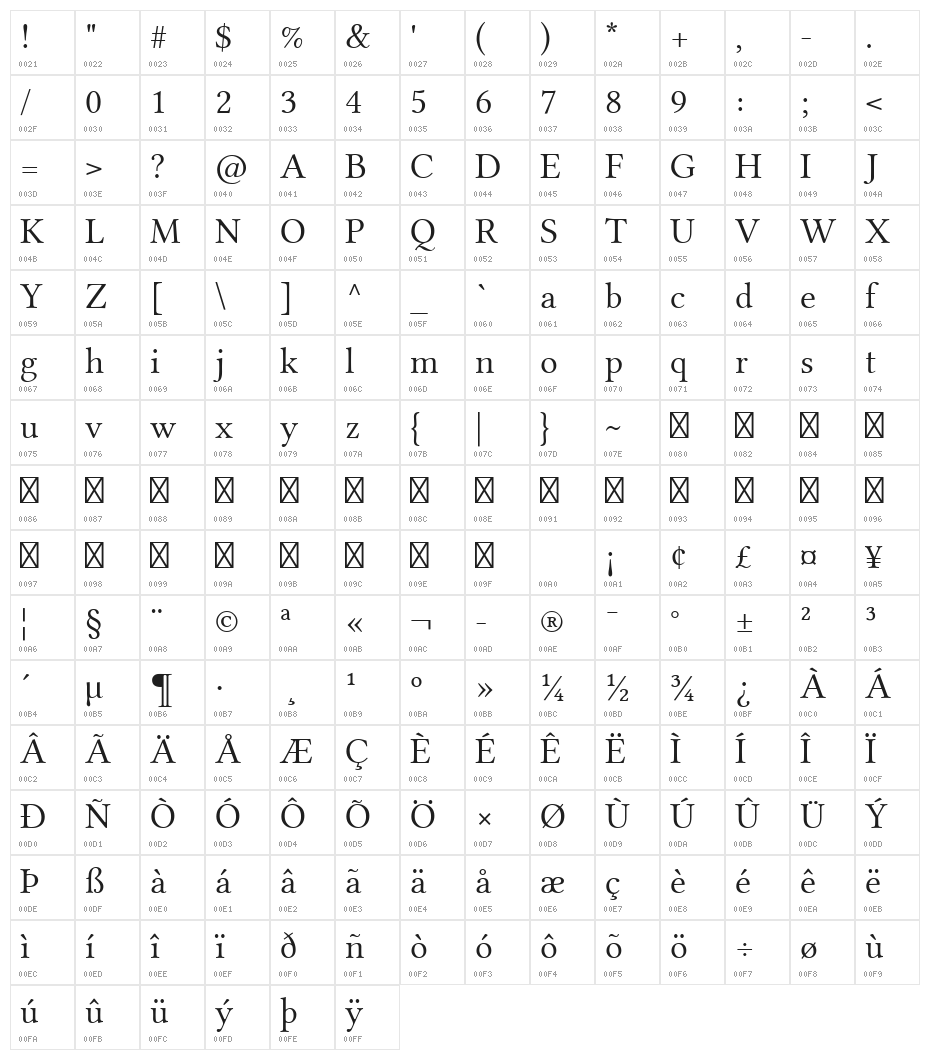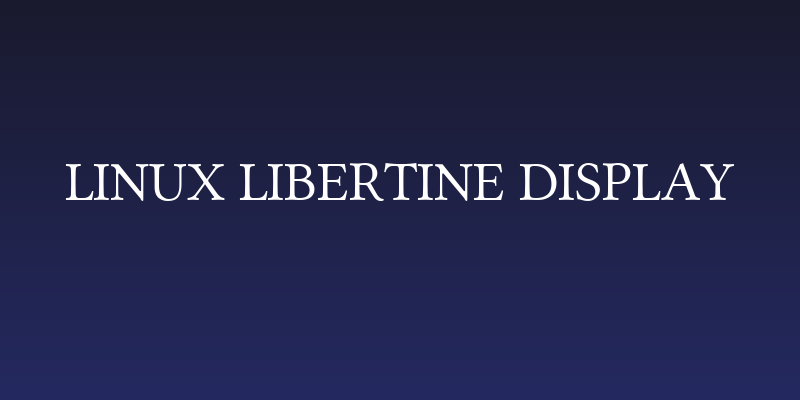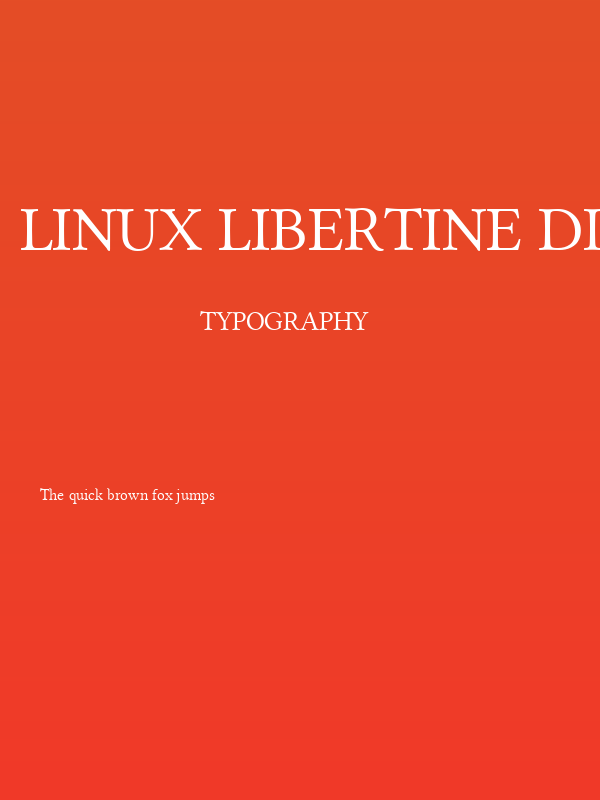
Linux Libertine Display Font
Linux Libertine Display Description
This typeface exudes a classic and sophisticated charm, characterized by its elegant serif design. The letters are well-proportioned, with a balanced contrast between thick and thin strokes, enhancing readability while maintaining a refined aesthetic. The uppercase letters are stately and commanding, while the lowercase letters offer a smooth and flowing appearance. The numerals are clear and distinct, making them suitable for a variety of uses. Special characters are crafted with attention to detail, ensuring consistency across the typeface. This font is versatile, suitable for both digital and print media, and can be used in a wide range of applications from editorial design to branding.
| Overall Style | Classic |
| Use Case | Body text, Headlines, Editorial design |
| Proposed Projects | Ideal for book typesetting, editorial design, branding, and formal invitations. |